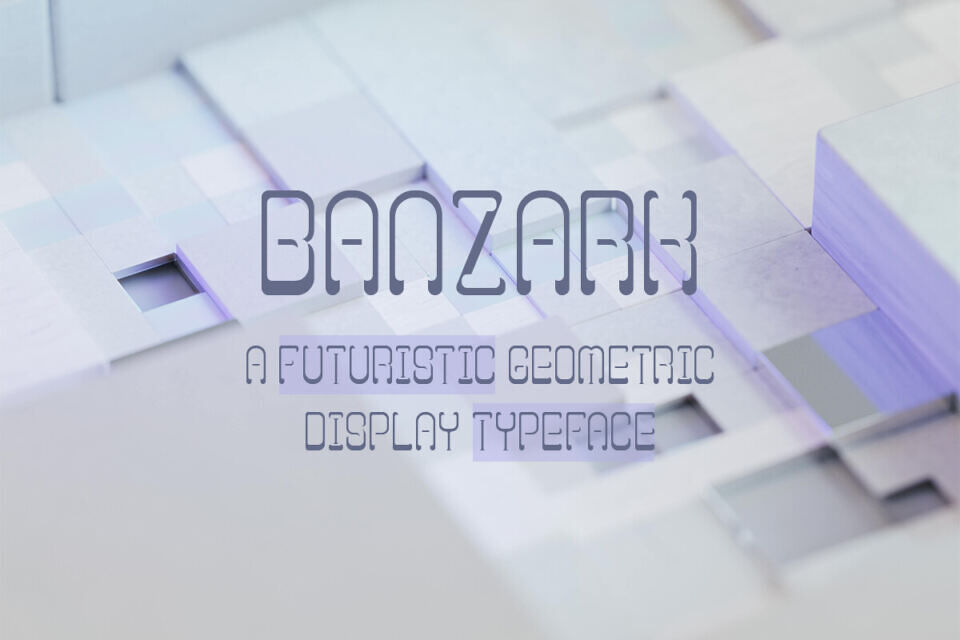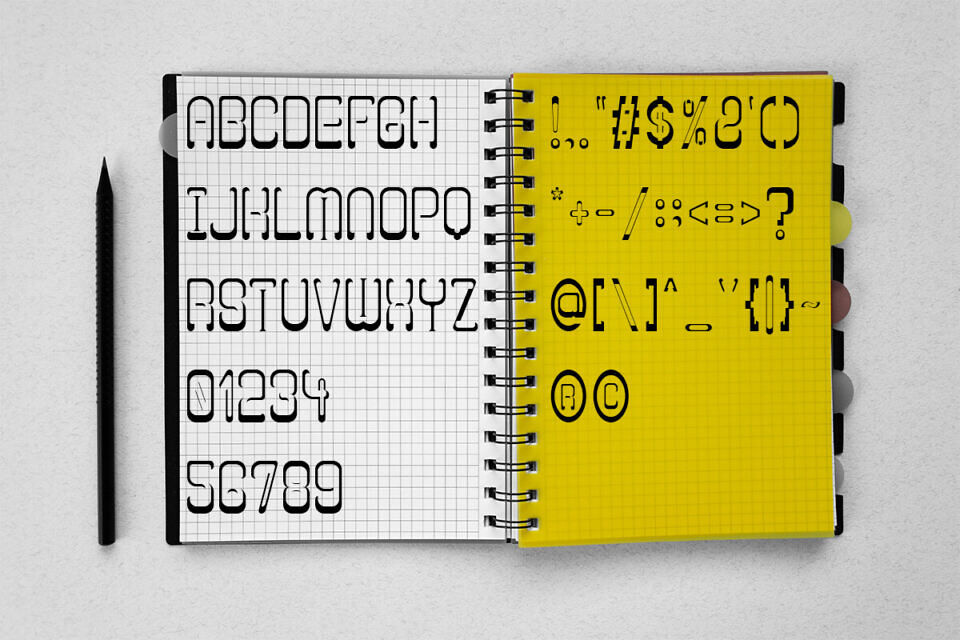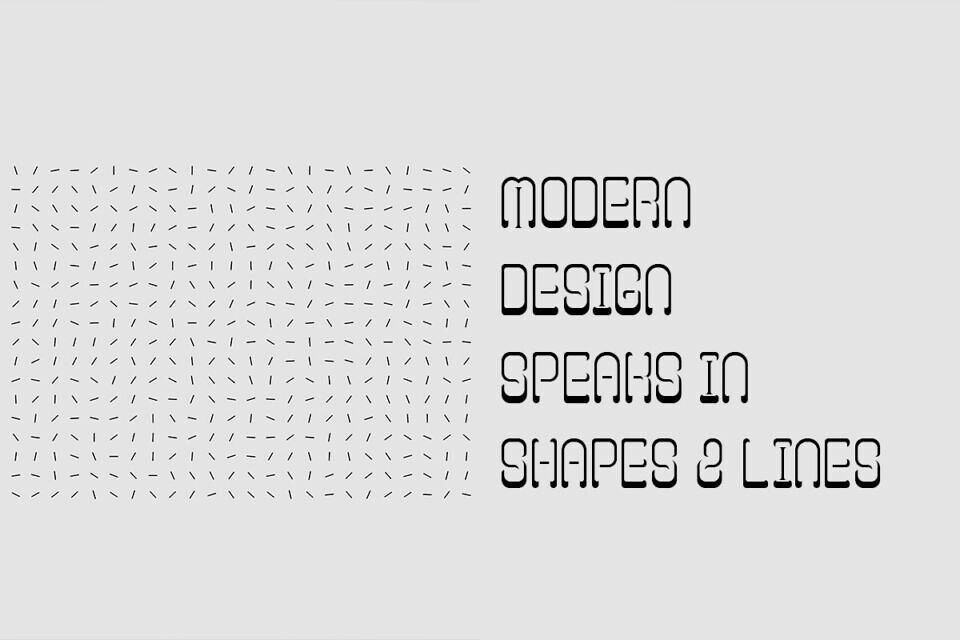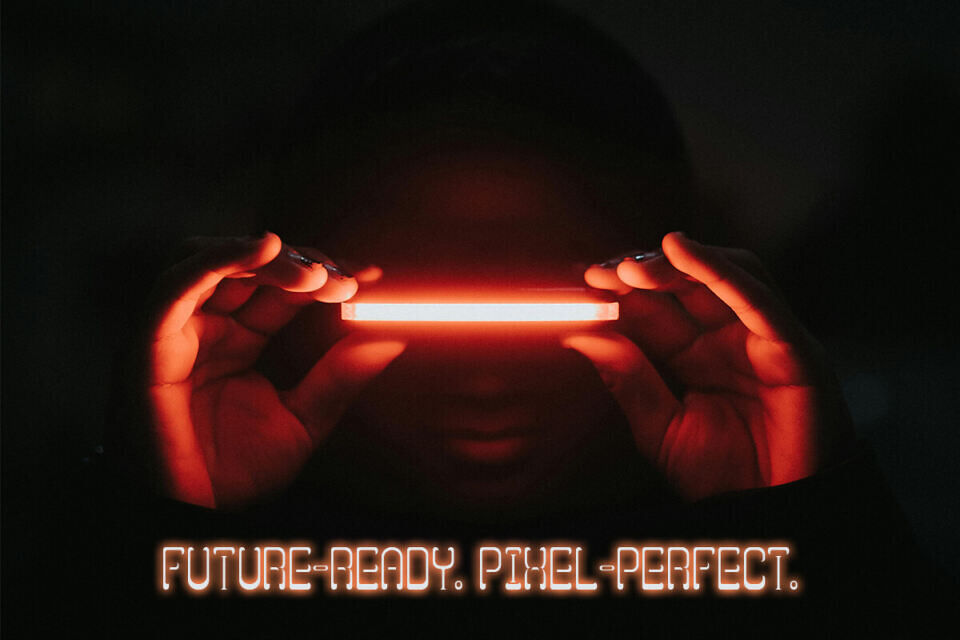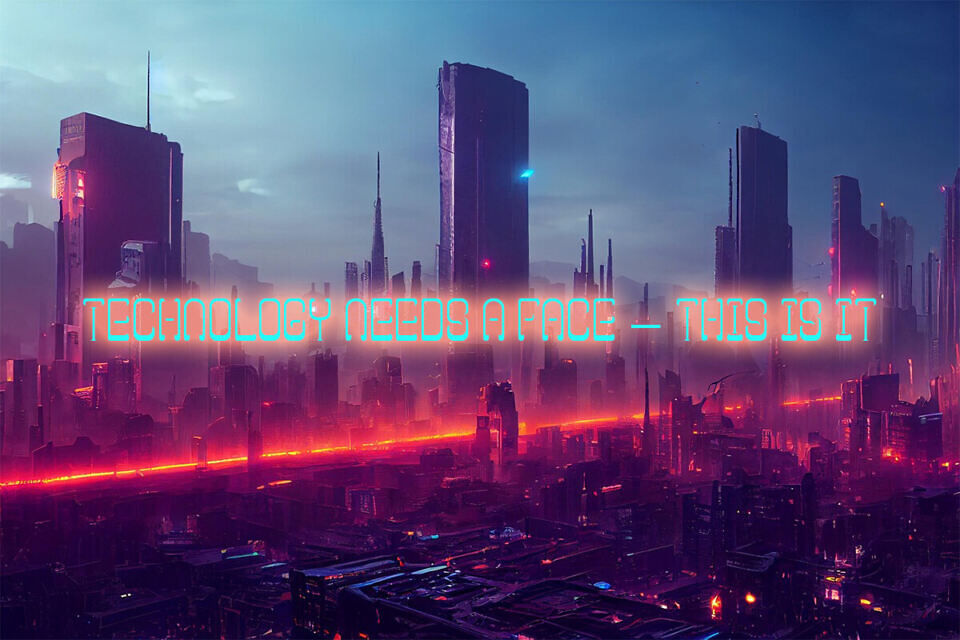
Banzark Font
Banzark is a bold and futuristic display font that blends geometric structure with a modern stencil aesthetic. Each letterform is crafted with smooth curves and sharp cuts, giving it a clean, tech-inspired look while maintaining strong legibility.
With its distinctive style and forward-thinking feel, Banzark delivers a powerful visual identity — ideal for creators looking to make a statement in the digital age.